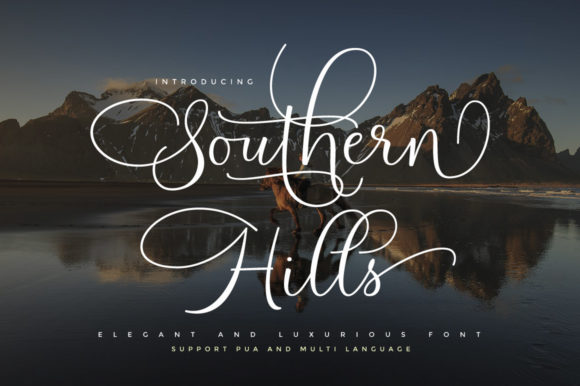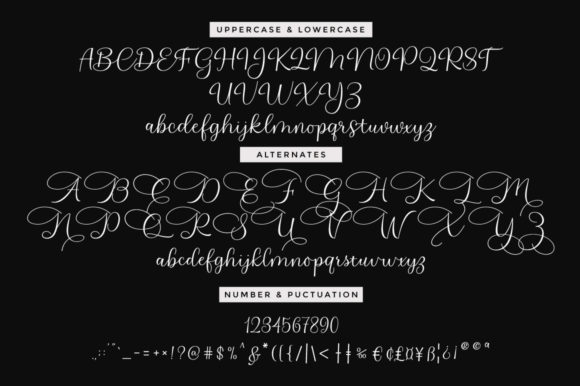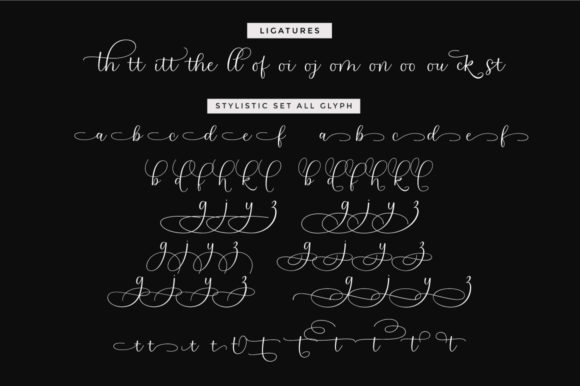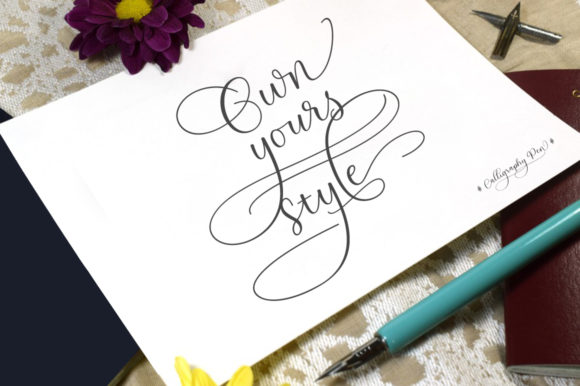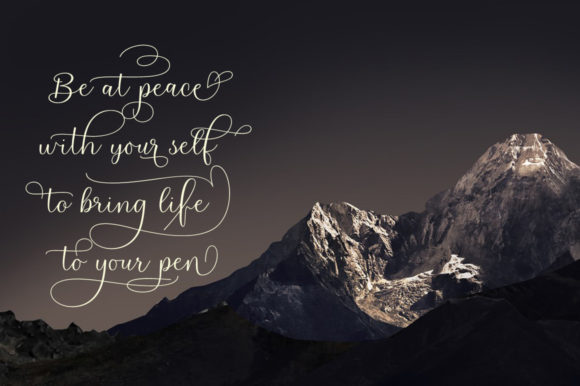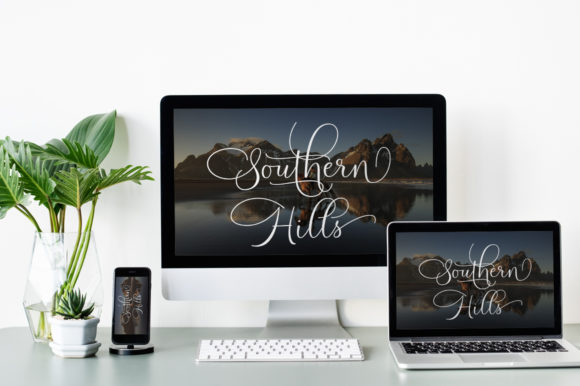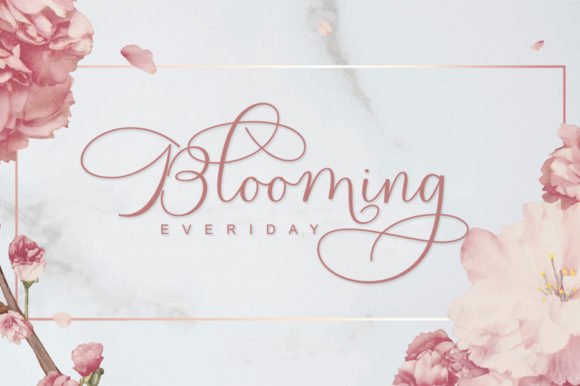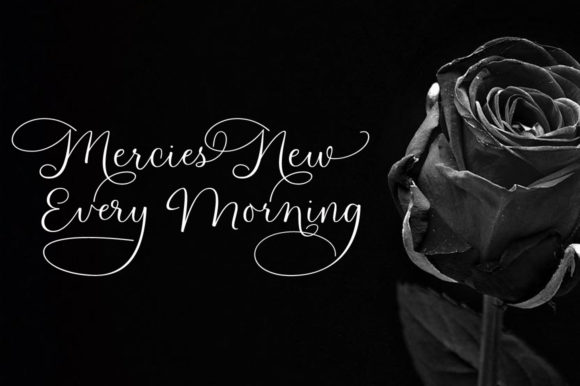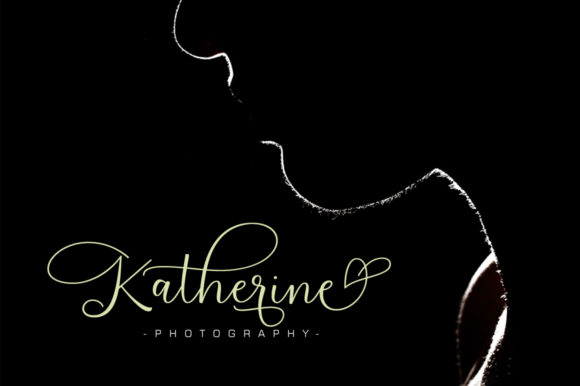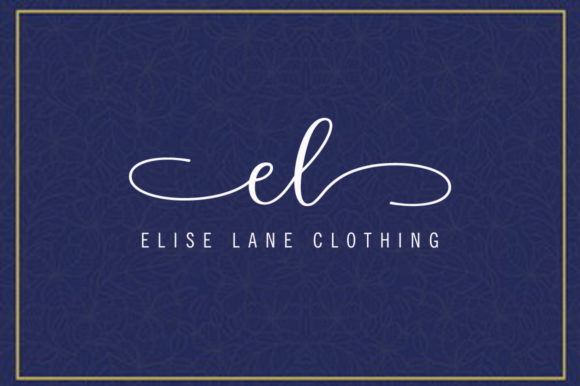
Southern Hills Font
About Southern Hills Font
Southern Hills is a sweet and charming handwritten font that’s perfect for turning any creative idea into a true standout!